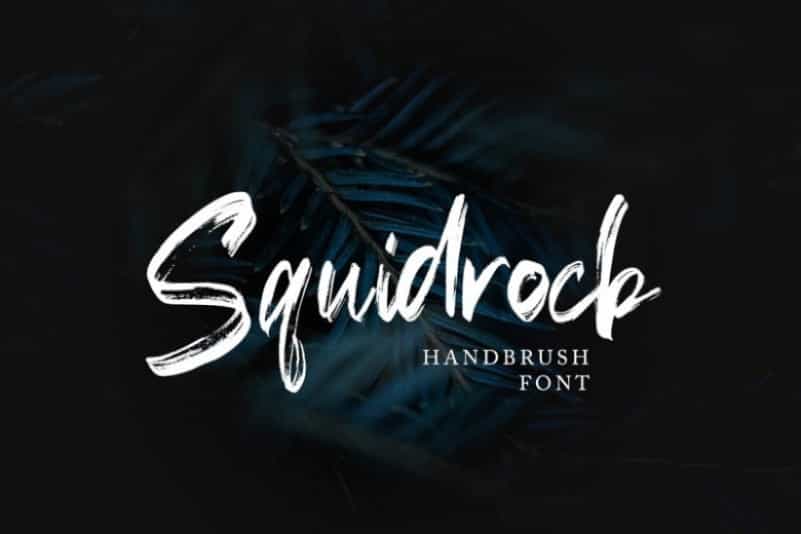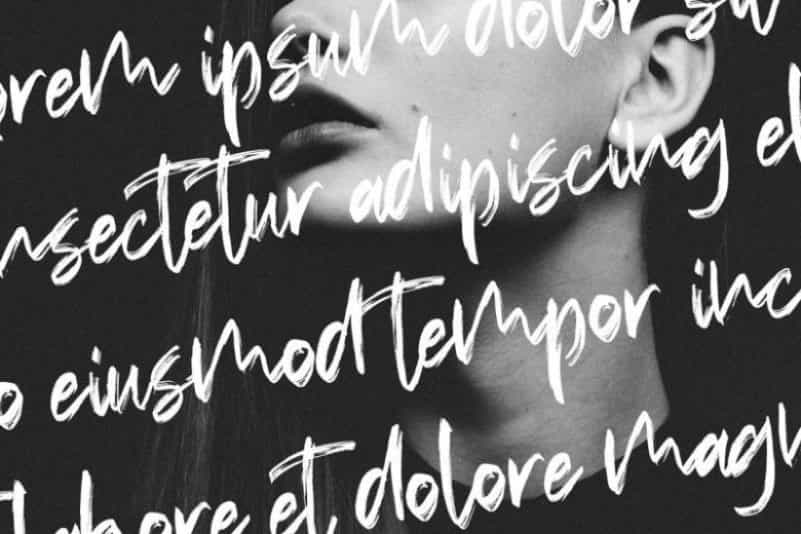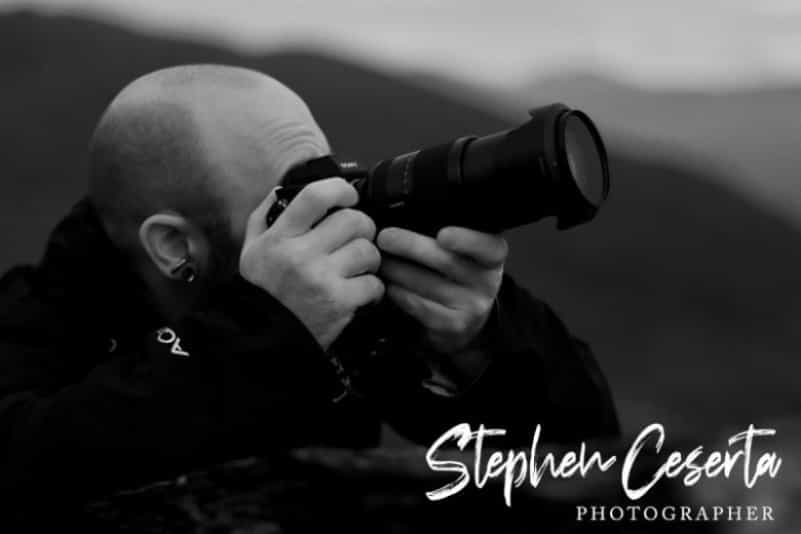
Squidrock is a Brush Font that belongs to the semi formal category. This font is perfect for many order such as, apparel, Hoodie, T-shirt, quotes, product packaging, watermark, photography, poster, branding, or anything that requires a typographic semi formal feel.